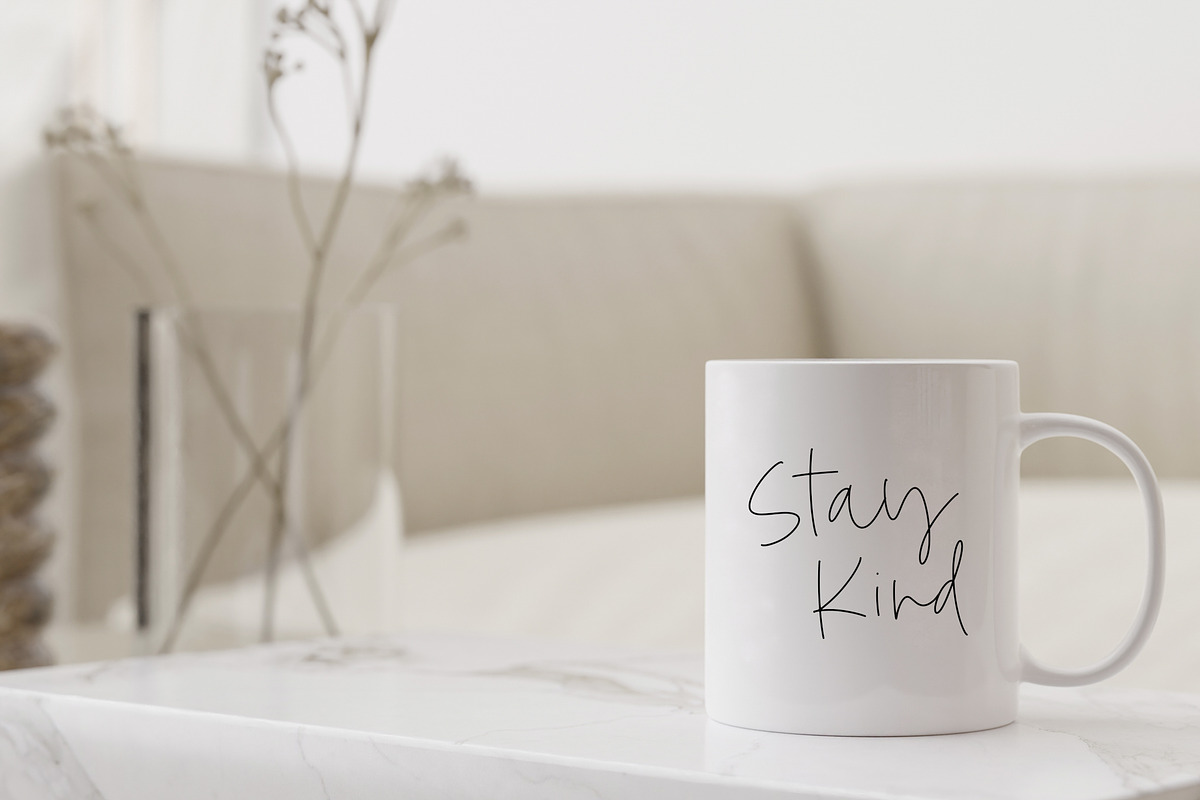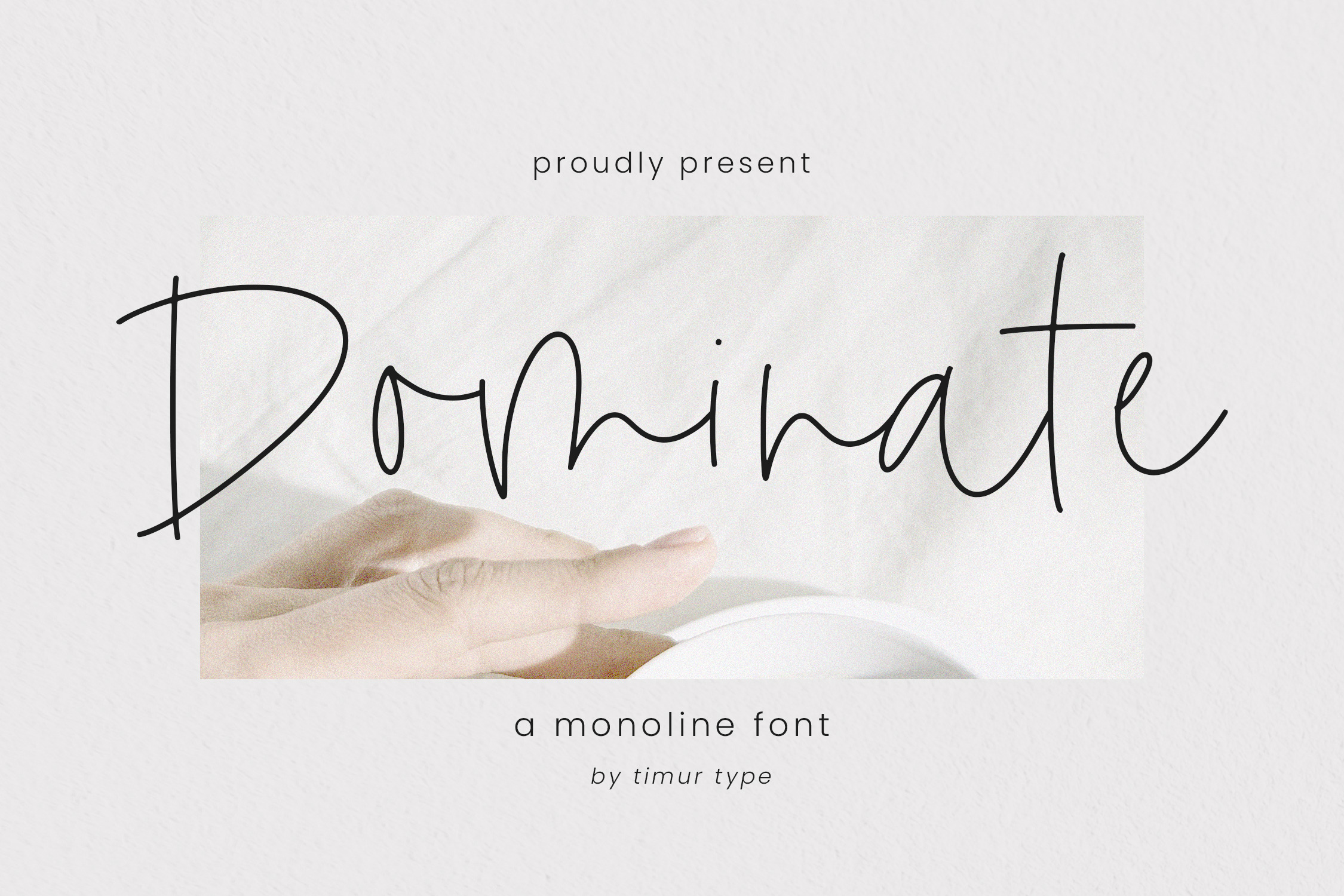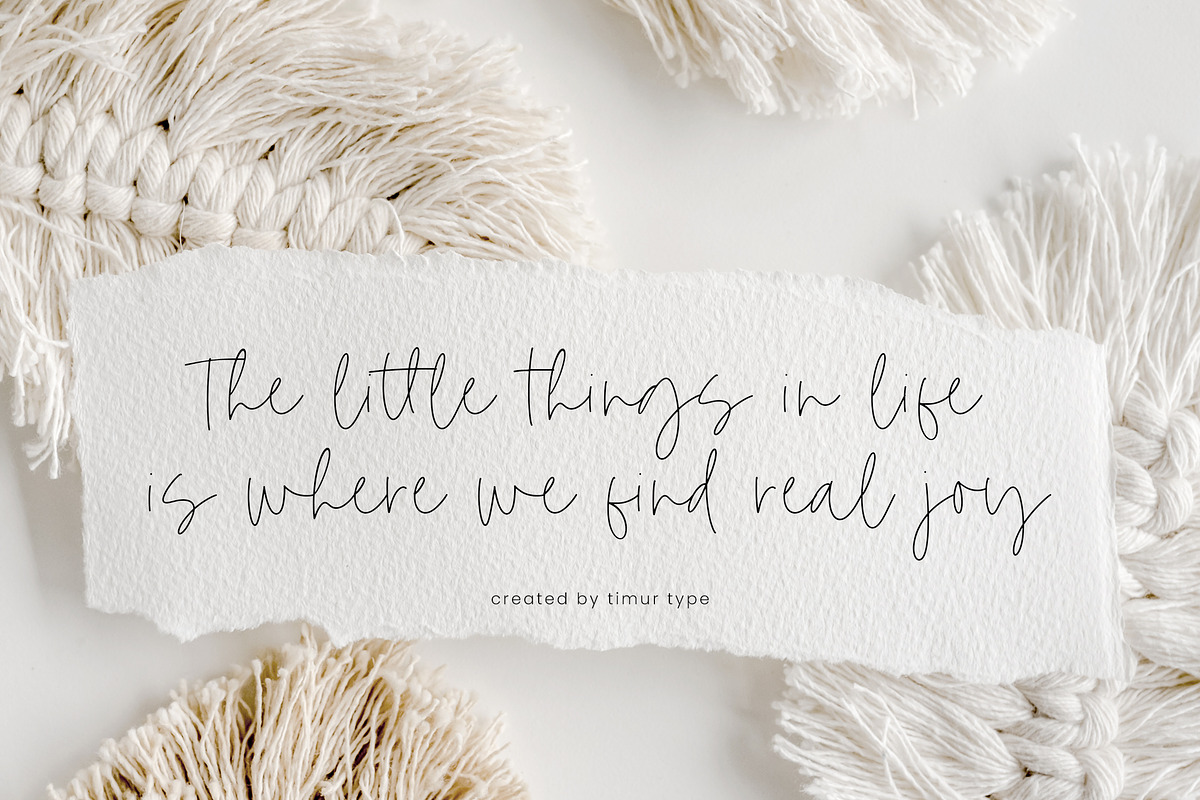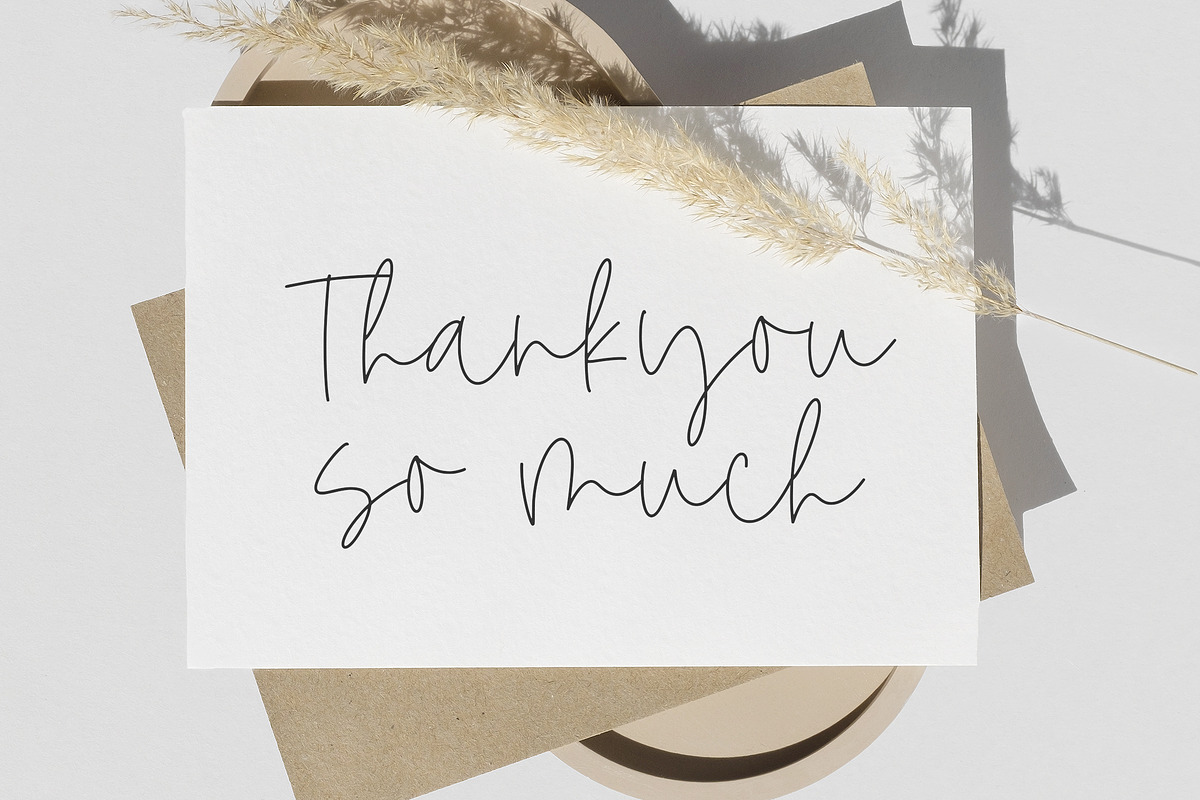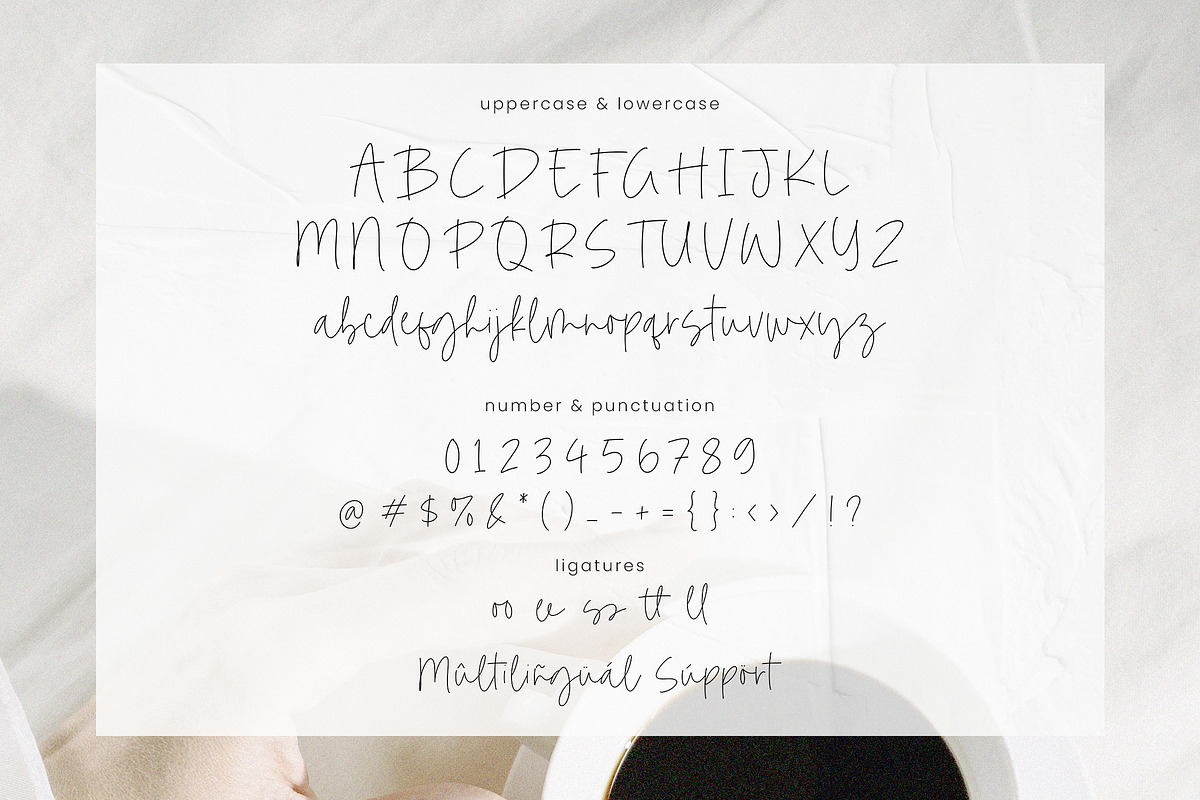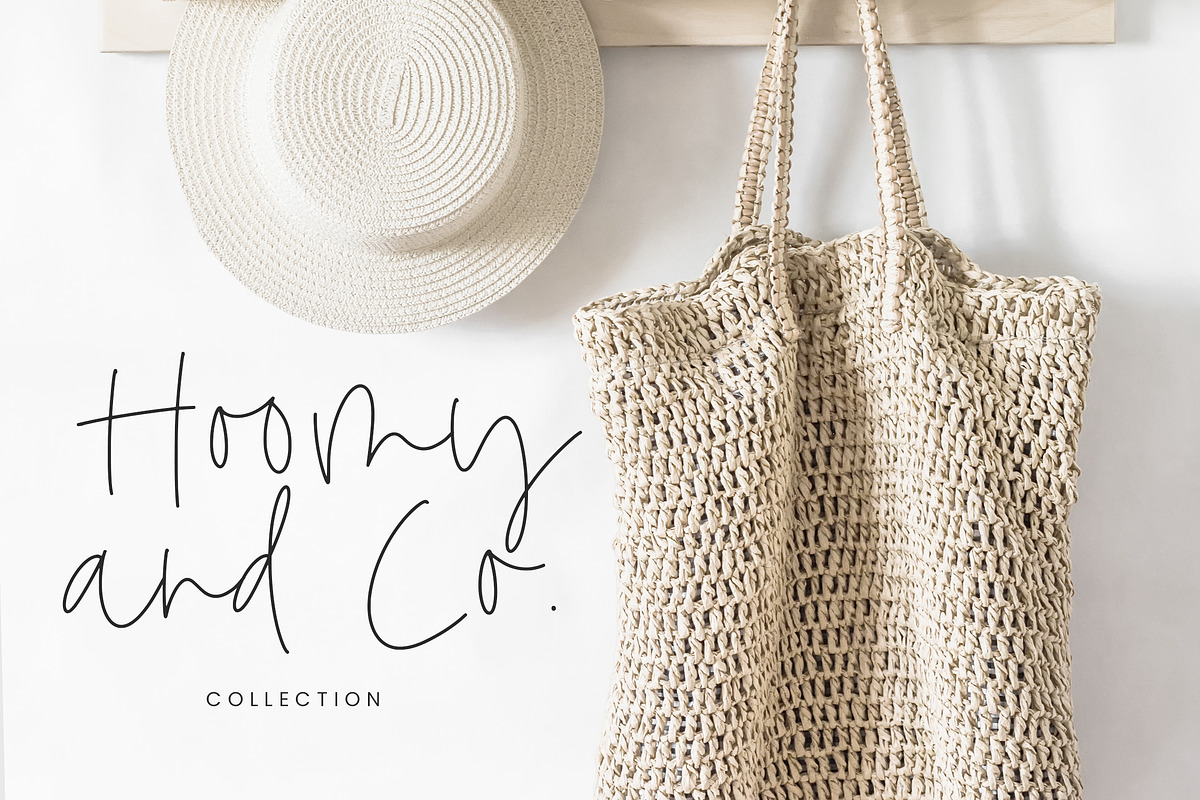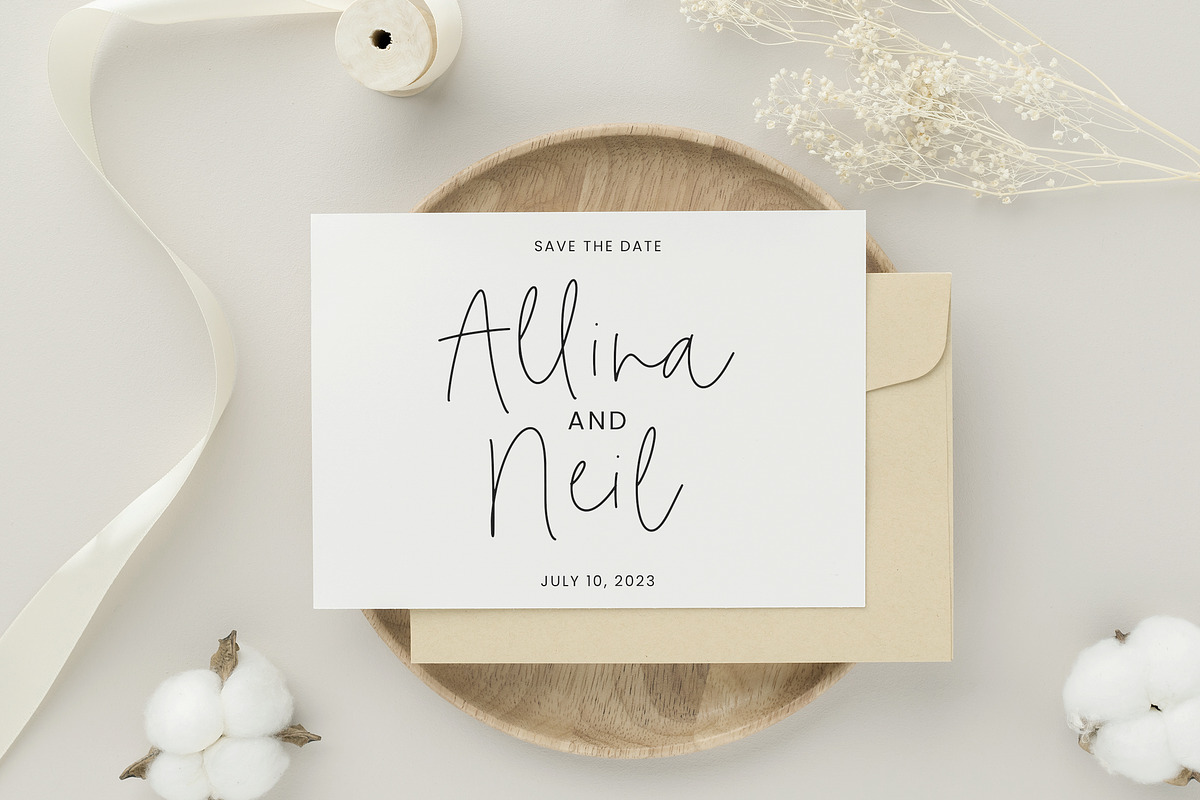
Dominate - Monoline Font
Proudly Present Dominate
Dominate is a Monoline font that is modern and fresh, and will bring a warm and inviting feel to your business. Take advantage of the fonts and experience the magic for yourself. Dominate font is perfect for product packaging, branding project, megazine, social media, wedding, or just used to express words above the background.
Dominate font also multilingual support. Dominate font Features premium : -Full Set of standard alphabet and punctuation